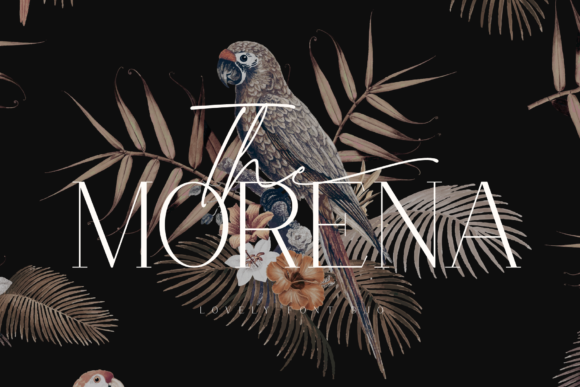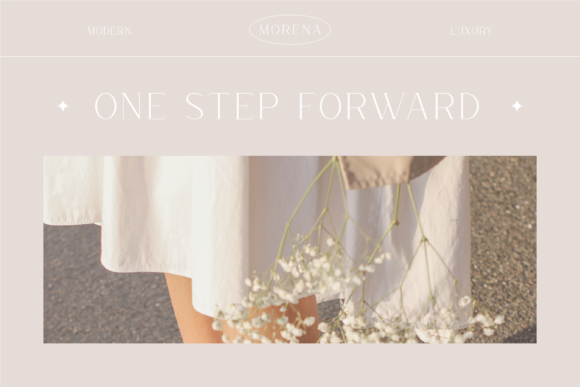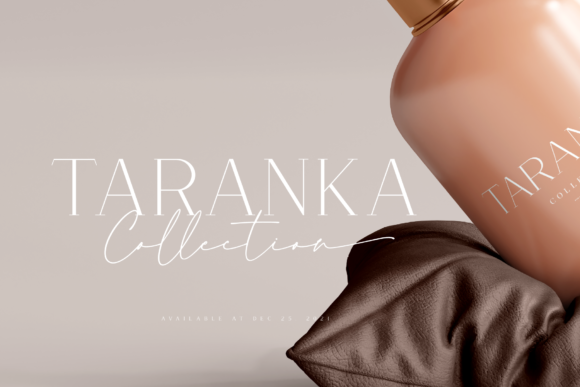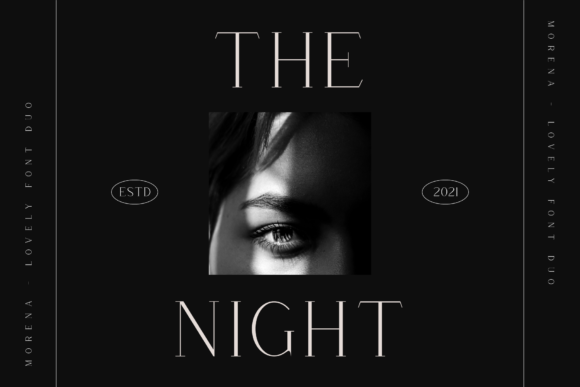
Morena Font: Elegant Typography for Modern Branding & Social Media
About the Morena Font
Let us introduce you to Morena Font, where timeless design meets modern craftsmanship. Morena consists of two fonts designed to complement each other perfectly. Together or apart, these fonts are ideal for adding a chic and cheery touch to your crafts. This font is PUA encoded which means you can access all glyphs and swashes with ease!
Morena’s playful yet elegant style makes it perfect for headlines, short-form text in branding materials, and eye-catching packaging designs. It also works well on posters or social media graphics where a touch of whimsy is desired. However, its decorative nature makes it less suitable for body text or UI elements requiring high readability.
Consider pairing Morena with a clean sans-serif like Open Sans for a balanced contrast, or a classic serif font such as Garamond for a more traditional feel. For a bolder statement, a geometric sans-serif like Montserrat could be used. The pairings depend on the desired level of formality.
Morena projects a friendly and cheerful personality, making it ideal for brands targeting a younger demographic or those promoting products associated with joy and optimism. Its decorative elements add a touch of sophistication without being overly serious.
Morena Font Usage Examples